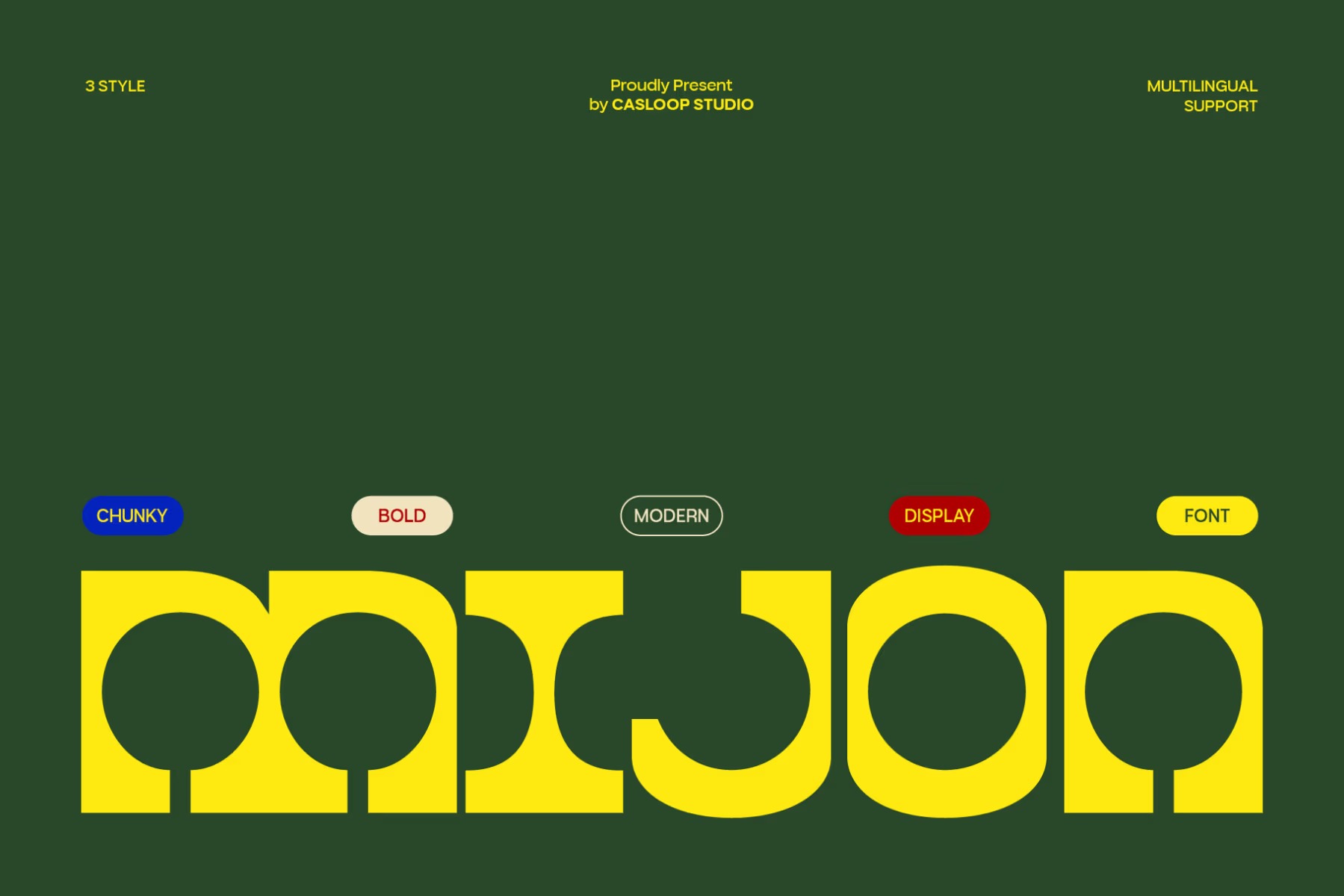
Mijon – Bold Diplay Font
Mijon – Bold Diplay Font is a clean and thoughtfully built typeface that works seamlessly for both professional branding and everyday creative uses. MIJON is a chunky bold display sans built for brands that love to stand out and take up space. With oversized proportions, lively curves, and quirky cuts, it feels like a visual shout—fun, confident, and unapologetically bold. Every letter is crafted to spark appetite and energy, making it the perfect fit for food, beverage, and lifestyle brands that live in the spotlight. MIJON blends chunky geometry with modern clarity, turning every word into a playful, flavorful statement.